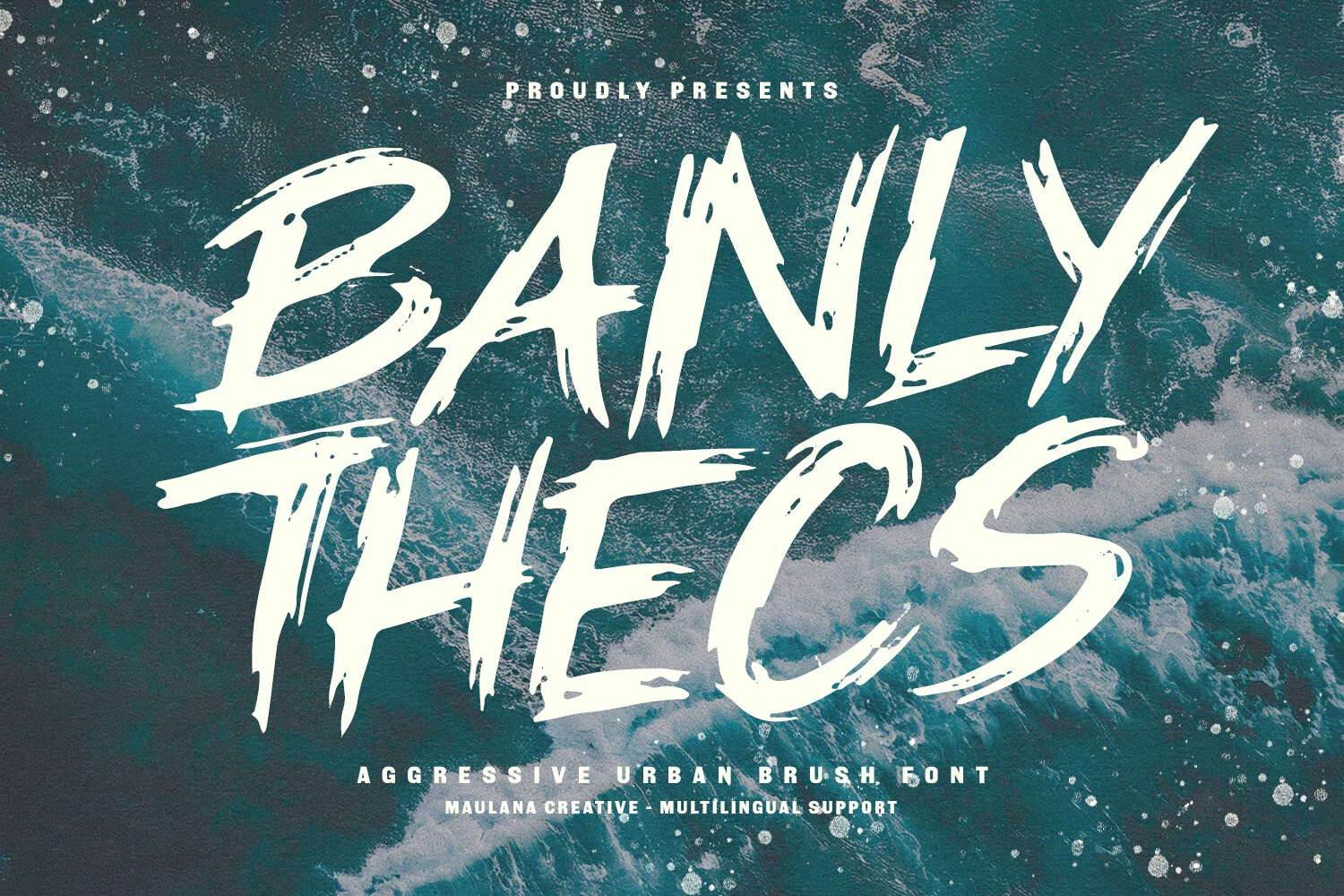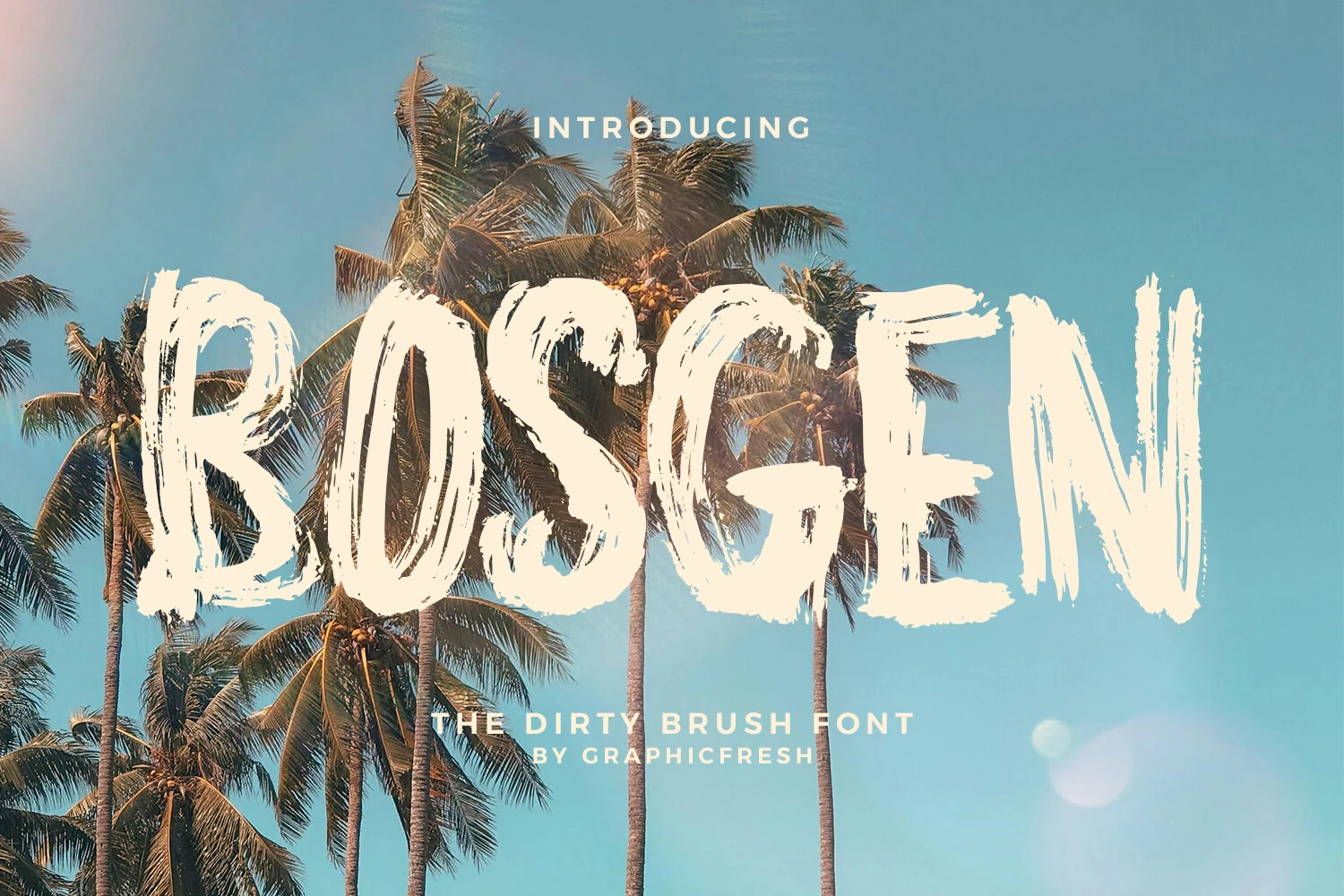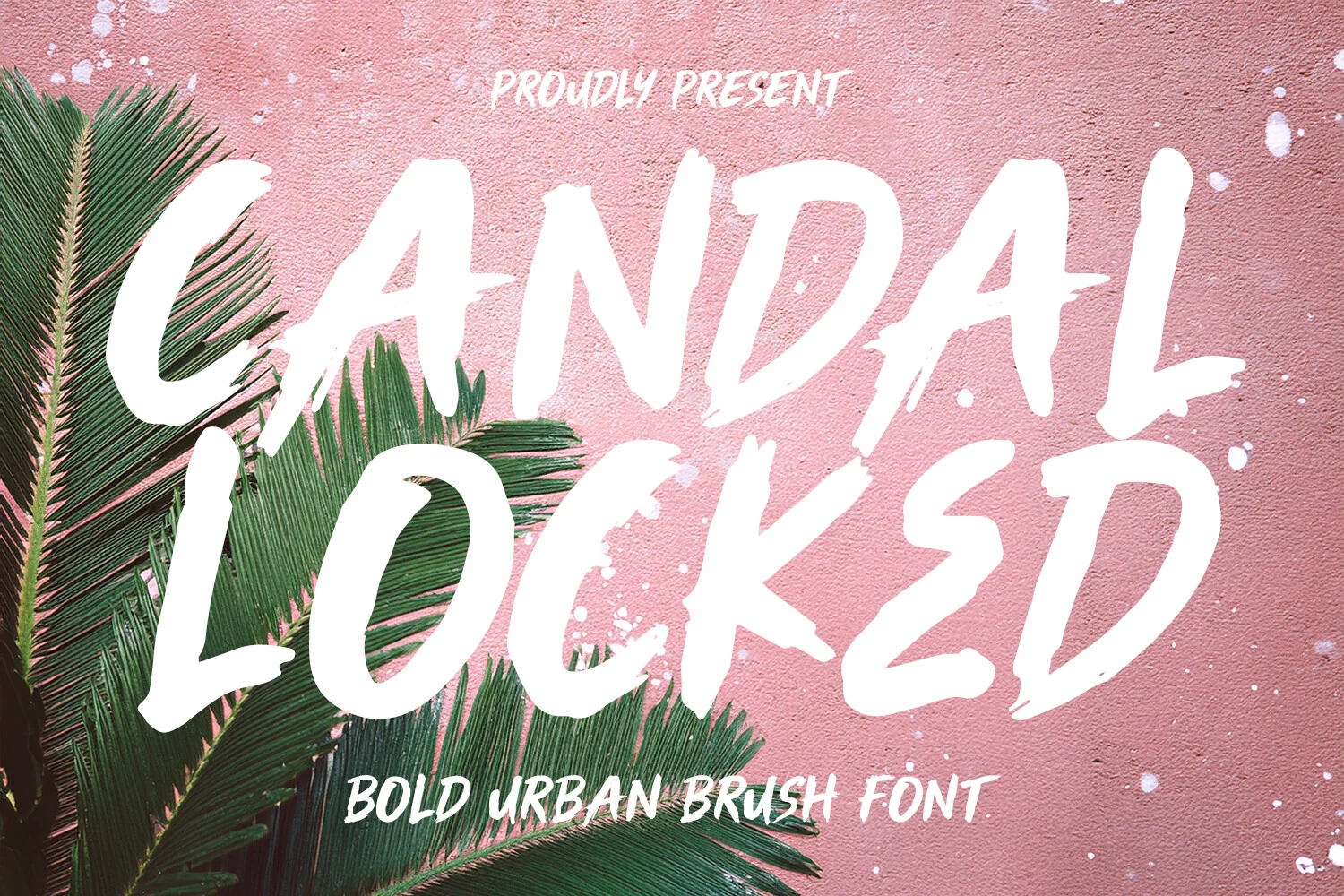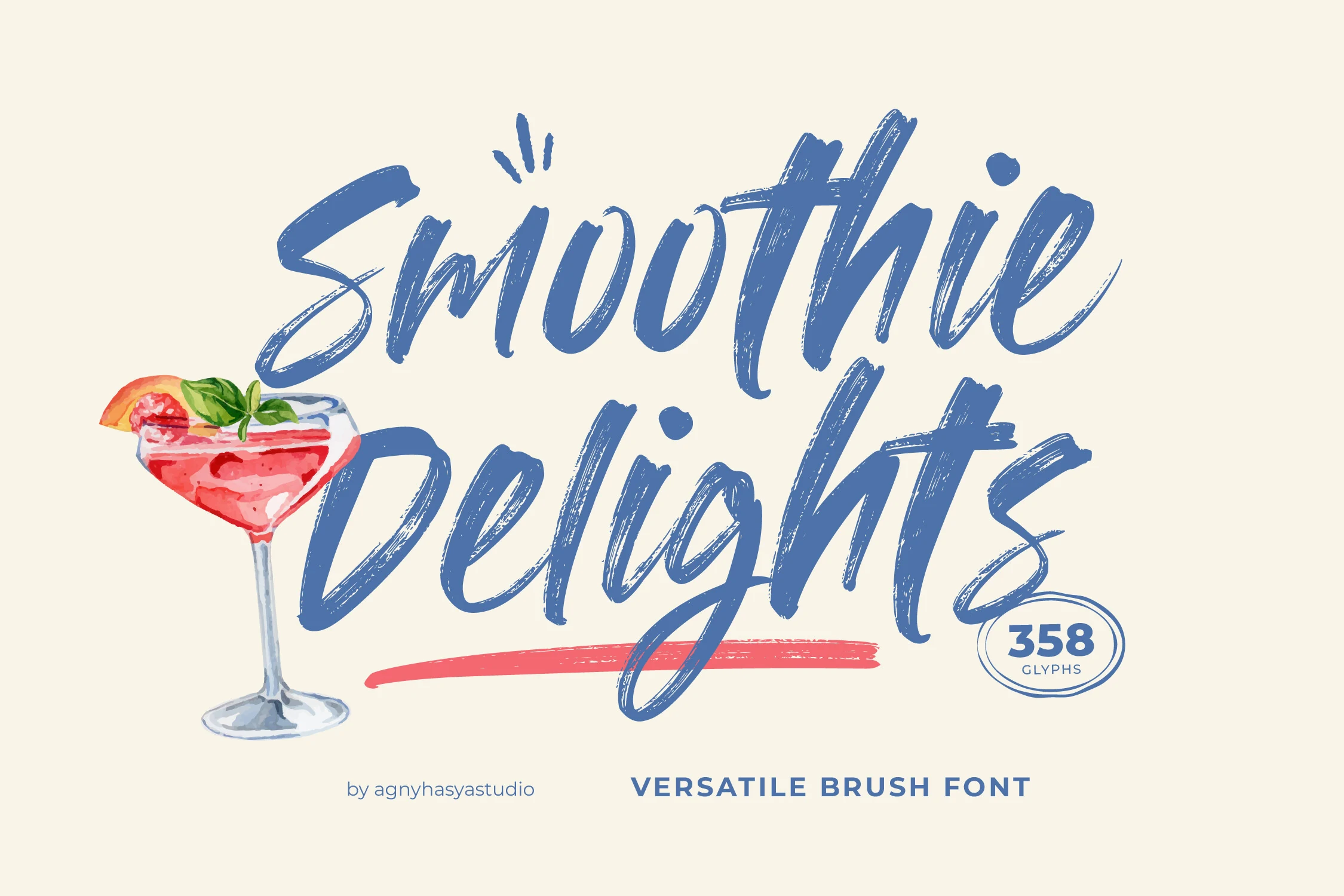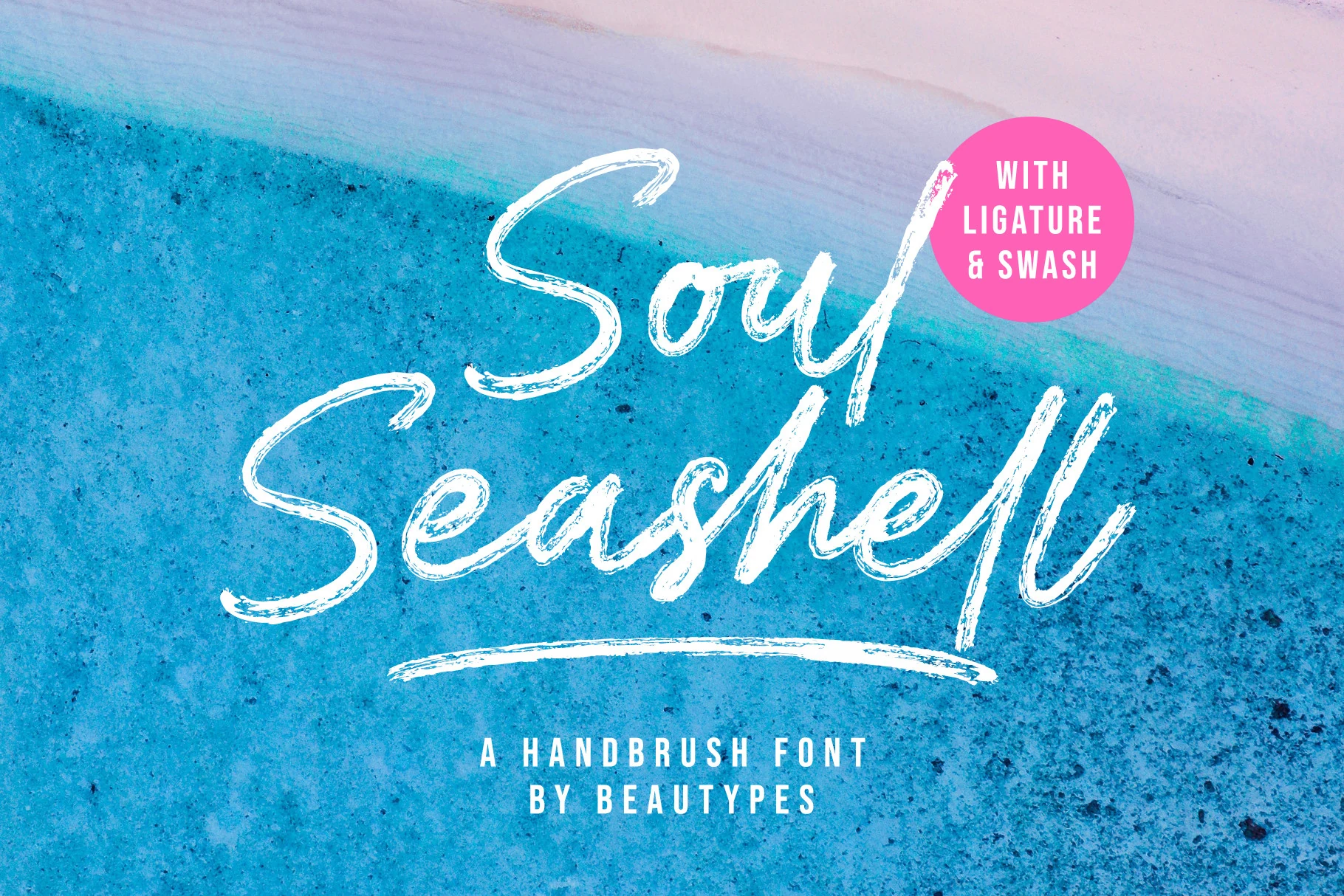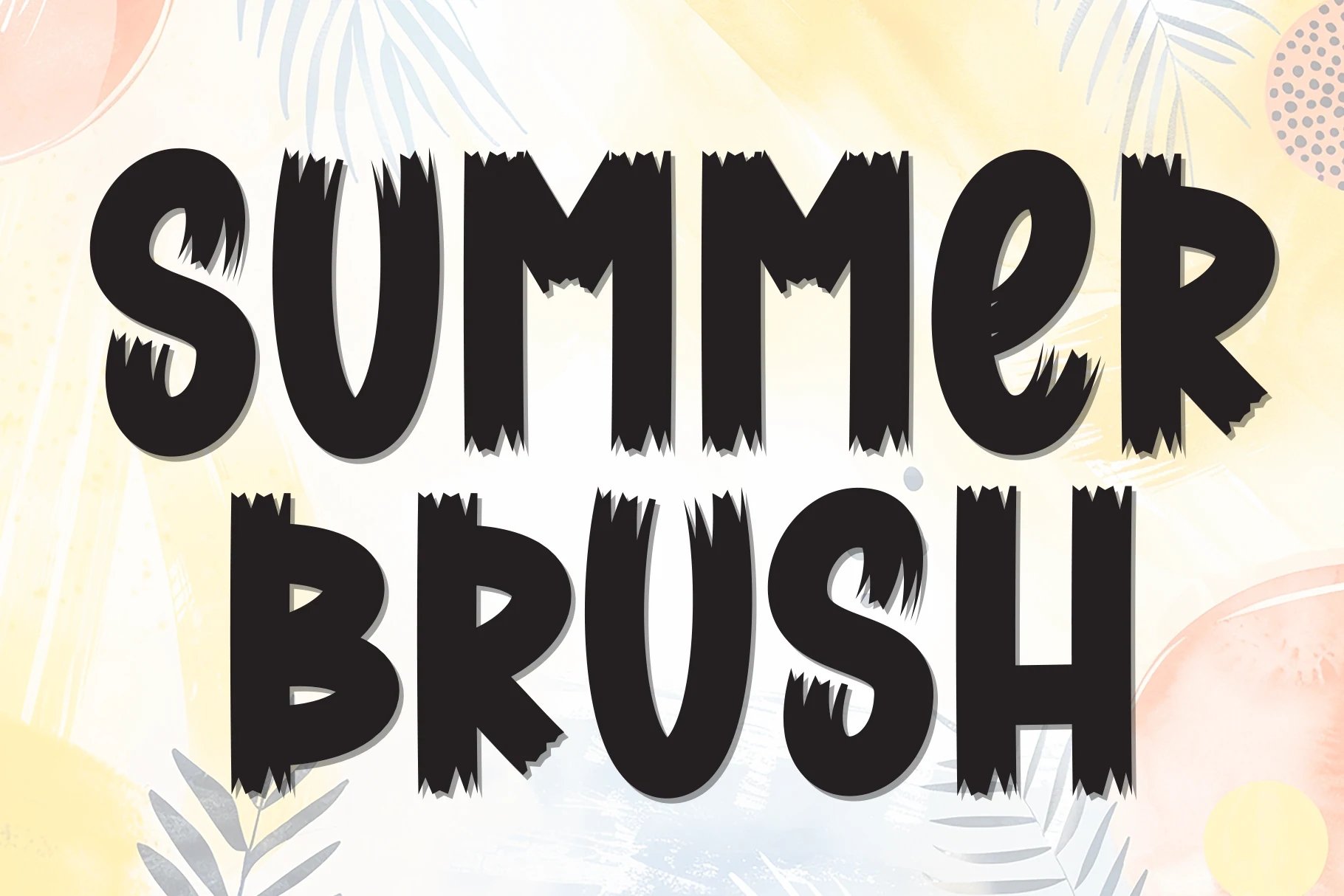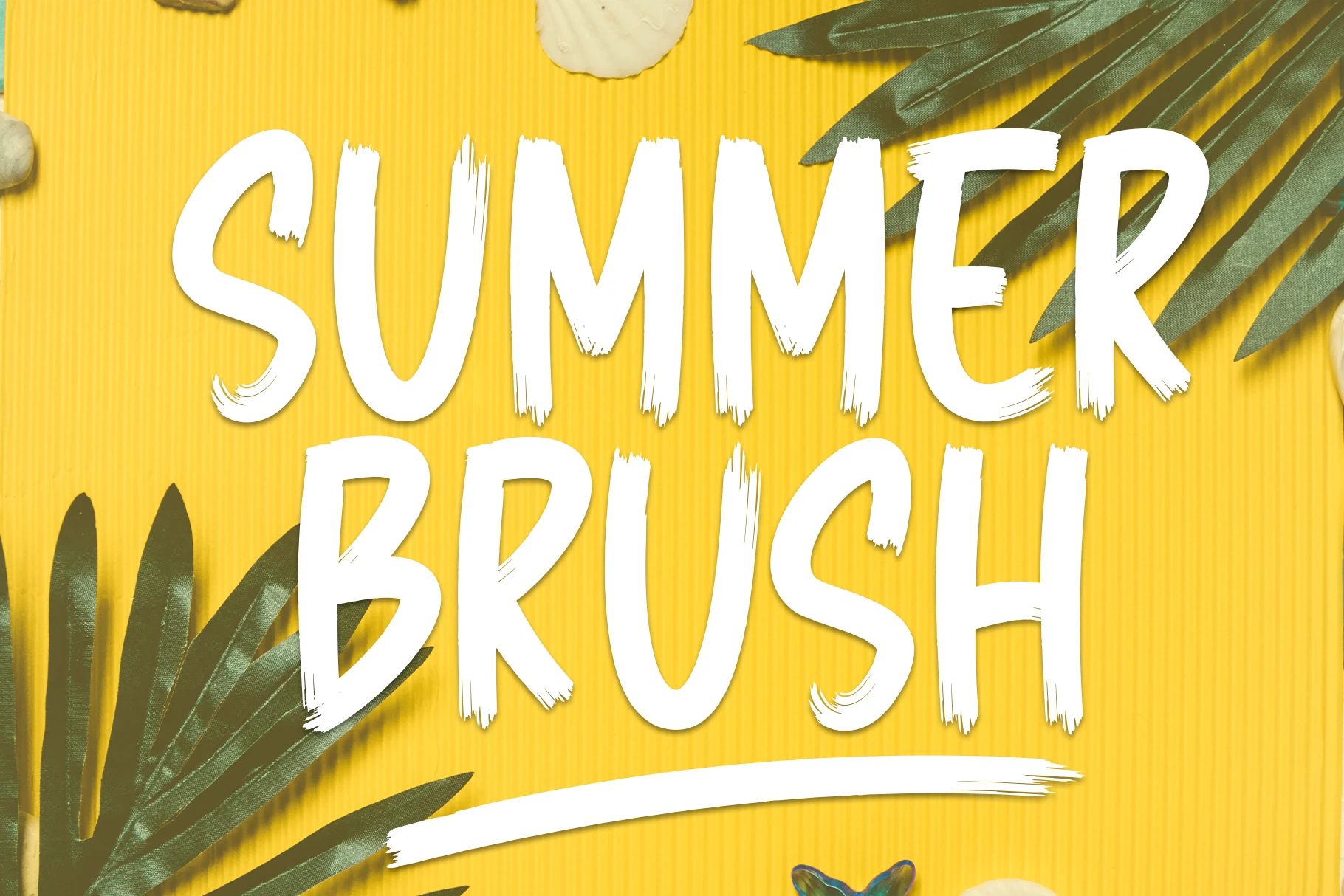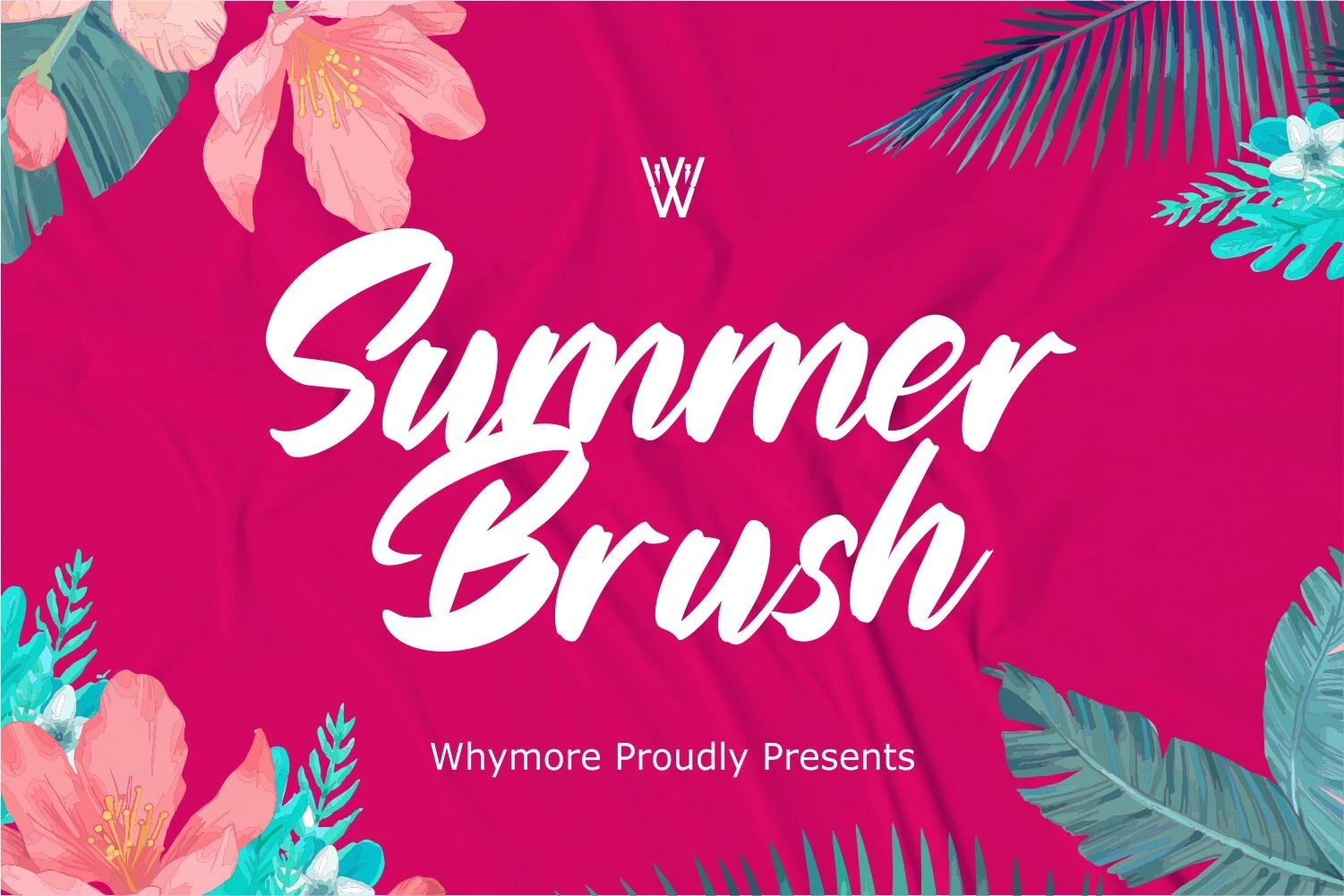
17 Best Summer Brush Fonts for Bold Seasonal Designs
This collection is for designers, crafters, and small brands looking for summer brush fonts with handmade texture, movement, and strong seasonal character. These 17 fonts work best for beach posters, T-shirt graphics, stickers, product labels, social media posts, casual logos, and bright summer branding where the lettering needs to feel painted, bold, and relaxed.
Smoothie Delights Font
Smoothie Delights Font has a confident brush-script rhythm, with wide angled strokes, rough dry-brush texture, and long sweeping exits that make each word feel quick and hand-painted. The slant keeps the lettering energetic, while the open shapes help it stay readable for short names and bright display phrases.
Smoothie Delights fits Summer Brush Fonts when the design needs casual movement without losing clarity. Keep spacing fairly open around the capitals and let the descenders run cleanly; crowded layouts will flatten the brush texture and make the script feel heavier than intended.
Cruel Summer Font
Cruel Summer Font has a scratchy dry-brush texture that gives each letter a chalky, weathered edge. The all-caps shapes are tall, loose, and slightly slanted, so the rough stroke breaks feel expressive without turning short words into a blur.
It suits Summer Brush Fonts when the lettering needs to carry the whole mood, especially in quotes, menu headings, and bold poster lines. Mixing the two character sets helps repeated letters feel less mechanical, which keeps longer words looking more naturally hand-drawn.
One Piece Font
One Piece Font is a loose brush script with oversized looped capitals, long tapering exits, and streaked inner texture that keeps the strokes from looking too clean. The wide curves and open joins give it better readability than many gritty scripts, especially for names, short titles, and compact display lines.
Use it in Summer Brush Fonts layouts where the wordmark needs movement rather than heavy impact. Let the large capitals lead the hierarchy, keep surrounding text restrained, and avoid tight tracking; the thin connecting strokes need space so the texture stays intentional instead of broken.
Soul Seashell Font
Soul Seashell Font has a breezy signature flow, with tall looping capitals, narrow joins, and quick dry-brush breaks that keep the script lively instead of polished. The strokes feel light and organic, while the long ending sweep gives short words a clear focal point.
For Summer Brush Fonts, this one works especially well when you want a handwritten look that still feels clean on packaging or branding. Let the capitals and underline swash carry the hierarchy, and keep nearby supporting text compact so the script’s rhythm does not get crowded.
Candal Locked Font
Candal Locked Font is a blunt, high-pressure brush typeface with oversized uppercase forms, rough dry-brush cuts, and sharp directional strokes. The letters sit tightly and hit hard, giving headlines a street-poster feel rather than a soft handwritten rhythm.
It belongs in Summer Brush Fonts when the layout needs force, texture, and fast visual impact. Use it for short phrases, stacked titles, or merch graphics; the heavy stroke weight needs strong contrast and enough margin so the ragged edges stay readable instead of turning into a solid block.
Hamilyn Font
Hamilyn Font has a smooth brush-script structure with broad downstrokes, soft tapering joins, and an easy flowing rhythm that feels polished rather than gritty. The rounded terminals and even weight keep the lettering open and calm, which helps it read cleanly as a main headline or delicate wordmark.
Among Summer Brush Fonts, this one stands out for its neat finish and gentle movement instead of raw texture. It works especially well in airy layouts where the underline swash has room to breathe, and it pairs best with restrained secondary text so the script keeps its fresh, graceful emphasis.
Summer Brush Font
Summer Brush Font uses broad brush lettering with thick connected strokes, rounded terminals, and slightly rugged edges that stop it from feeling too polished. The oversized capitals and smooth script rhythm give it instant display presence, while the open shapes keep short words and stacked titles easy to read.
For Summer Brush Fonts, this one leans bright, punchy, and uncomplicated rather than gritty. It works best when you keep the wording short and let the script carry the energy, especially in posters or social graphics where a clean sans serif underneath can handle smaller supporting text without competing for attention.
Summer Brush Font
Summer Brush Font preview with bold white connected brush script and smooth sweeping strokes
Summer Brush Font has a polished script rhythm, with broad downstrokes, smooth joins, and tapered exits that make the lettering feel confident without becoming harsh. Its large capitals and connected lowercase forms create a strong wordmark shape, while the softer edges keep the brush style refined.
For Summer Brush Fonts, this version fits layouts that need handwritten warmth with a cleaner finish. Give the main word enough width, avoid squeezing the spacing, and let a smaller serif or simple sans handle supporting details so the script keeps its graceful hierarchy.
Summer Brush Font
Summer Brush Font preview with bold white marker-style script on a bright pink tropical background
Summer Brush Font has a bold marker-script feel, with thick connected strokes, rounded turns, and a large looping capital that gives the lettering instant storefront energy. The texture stays fairly clean, so the script looks hand-painted without becoming messy or hard to read.
In Summer Brush Fonts collections, it leans closer to sign-painter lettering than dry, broken brush styles. It works best in short names and stacked headings, and the shapes hold up better when you avoid tight tracking and let a compact sans serif handle smaller supporting text.
Summer Island Font
Summer Island Font preview with playful rounded brush lettering in black and orange with a distressed texture
Summer Island Font has a cheerful display look built from thick rounded strokes, loose hand-drawn proportions, and a lightly worn brush texture inside each letter. The forms feel youthful and informal, with enough weight to stand out quickly on posters, stickers, and short headline-style layouts.
In Summer Brush Fonts roundups, this one works best when the text stays short and bold. The broad shapes and compact rhythm hold up well in stacked words, while the built-in uppercase, lowercase, and numerals give you enough flexibility to keep banners and social graphics feeling lively instead of repetitive.
Sparkle Font
Sparkle Font preview with bold white uppercase brush lettering and scraped paint texture
Sparkle Font has a heavy uppercase brush style, with tight spacing, blunt stroke endings, and scraped paint texture running through the letters. The contrast between solid white strokes and transparent breaks gives the word a raw painted look without losing its basic letter shapes.
Use it in Summer Brush Fonts layouts that need compact impact rather than flowing script movement. Keep the wording short, choose strong background contrast, and avoid shrinking it too far; the tight rhythm and rough interior gaps work best when the texture remains visible.
Bosgen Font
Bosgen Font preview with bold white uppercase dirty brush lettering over palm trees
Bosgen Font pushes tall all-caps brush lettering with ragged dry-stroke edges, scraped interiors, and uneven pressure that makes each character feel painted in a rush. The narrow proportions keep long words compact, while the rough texture adds a weathered coastal-street energy instead of a polished display look.
For Summer Brush Fonts, Bosgen works best when the headline stays short and the background is simple enough to hold those distressed edges. Use it as the dominant layer in posters, branding, or streetwear-style graphics, then pair it with a clean condensed sans so the brush texture keeps the visual weight.
Hello Tropical Font
Hello Tropical Font preview with white casual brush script, connected lowercase lettering, and a bold underline swash
Hello Tropical Font has a relaxed brush-script flow with thick solid strokes, rounded turns, and a broad underline swash that gives short words a strong finish. The lowercase forms feel casual and friendly, but the weight stays even enough to keep the lettering clear in quick-reading layouts.
Use it for Summer Brush Fonts designs when you want a cheerful handmade look without rough, broken texture. It holds up best in short phrases, label-style compositions, and simple logo layouts where the swash has room to breathe and smaller support text can sit quietly underneath.
Banly Thecs Font
Banly Thecs Font preview with aggressive cream brush lettering and jagged dry-stroke cuts
Banly Thecs Font is a loud urban brush display face with slashed uppercase forms, sharp exits, and dry paint gaps cut through the strokes. The letters are wide and aggressive, so the texture reads as intentional damage rather than a soft handmade finish.
Banly Thecs fits Summer Brush Fonts when a design needs rebel-surf energy, action-poster weight, or streetwear-style force. Keep the wording short, use strong contrast, and avoid busy supporting elements; the jagged edges already carry most of the visual movement.
Summer Lagoon Font
Summer Lagoon Font preview with bold white uppercase brush lettering and rough dry-brush texture
Summer Lagoon Font uses tall uppercase brush lettering with rough dry edges, visible paint gaps, and broad strokes that hit hard at a glance. The condensed shapes keep long words compact, while the uneven texture gives the letters a fast hand-painted feel instead of a polished display finish.
Use it when Summer Brush Fonts need real impact rather than softness. It works best in short stacked titles, merch, and bright promo graphics where the bold texture can stay prominent, so keep supporting text simple and give the headline enough scale to show the brush detail clearly.
Inspire Font
Inspire Font preview with bold white textured brush lettering and rough dry-brush strokes
Inspire Font pushes a dry-brush texture into thick, tightly packed letterforms, giving each stroke scraped edges, bristle gaps, and uneven paint deposits. The letters are tall and loud, but the rounded pulls and rough terminals keep the wordmark from feeling mechanical.
In a Summer Brush Fonts collection, this is the abrasive display choice for compact headlines, posters, and punchy merch graphics. Keep it large with strong contrast; the tight spacing adds force, while extra line space prevents the brush texture from turning muddy in stacked compositions.
Hello Summer Font
Hello Summer Font preview in bold white textured brush script with rounded handwritten letters
Hello Summer Font has thick brush strokes, rounded joins, and a lightly distressed texture that keeps the lettering from feeling too polished. The script flows in a soft, bouncy rhythm, so even with its bold weight it still reads as friendly, casual, and warm.
For Summer Brush Fonts, this one stands out in short headlines where the texture can stay visible and the connected shapes have room to breathe. It pairs especially well with a small serif or simple all-caps subtitle, which helps create hierarchy without competing with the brushy movement.
Summer brush fonts work best when the design needs visible texture and fast seasonal impact. Choose smooth brush scripts like Hamilyn, Hello Tropical, or Soul Seashell for logos and packaging. Use rougher display styles like Banly Thecs, Bosgen, Sparkle, or Summer Lagoon for posters, merch, and bold summer graphics.